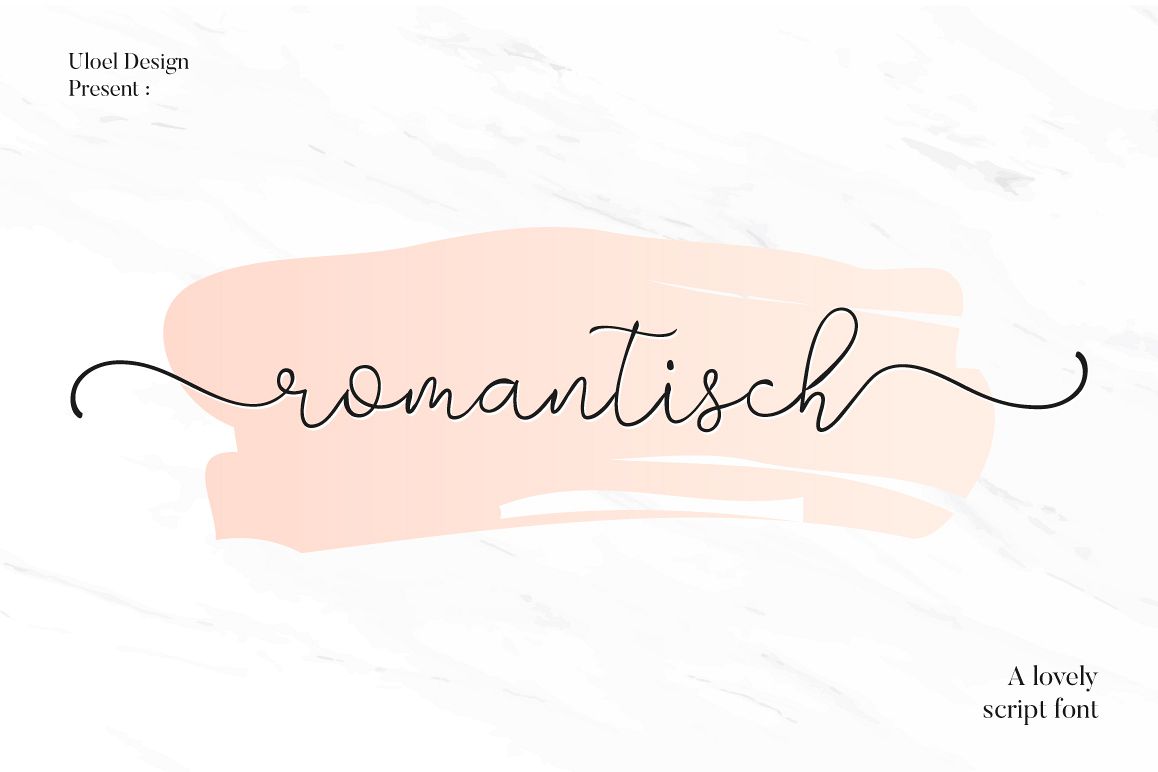
Romantisch
Romantisch a  lovely & modern script with a handmade calligraphy style,
decorative characters So beautiful on invitation like greeting cards,
branding materials, business cards, quotes, posters, and more!!